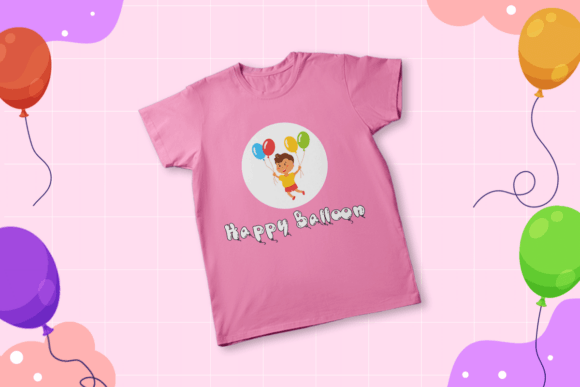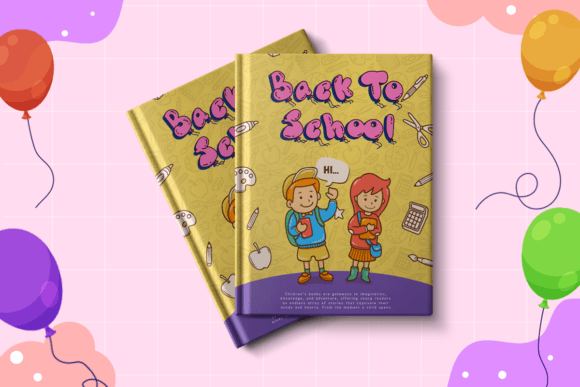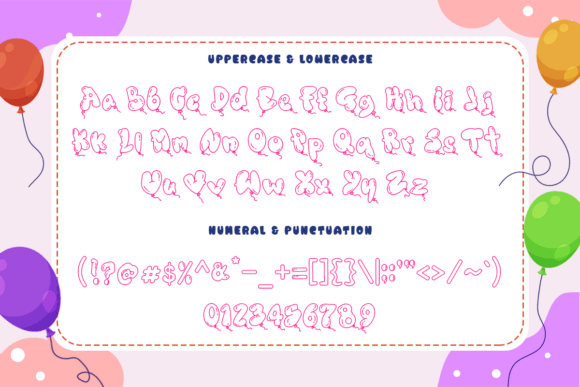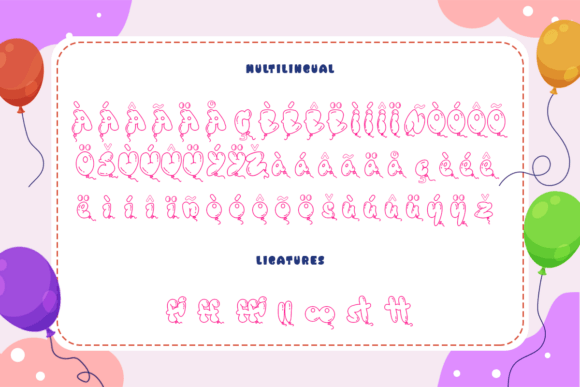
Baloons Font: The Perfect Addition to Your Kids’ Projects
Are you looking for a fun and playful font to add a touch of excitement to your kids’ projects? Look no further than Baloons Font! This delightful balloon-style typeface is perfect for kids’ birthday invitations, party decorations, classroom materials, and t-shirt designs. With its simple, cheerful, and easy-to-use design, Baloons Font is sure to bring a smile to everyone’s face.
What Makes Baloons Font So Special?
Baloons Font is more than just a font – it’s a way to add a joyful touch to your creations. Its playful design is reminiscent of balloons, making it perfect for kids’ projects. The font is available in OTF and TTF formats, ensuring that it can be used on a variety of devices and software. Additionally, Baloons Font has multilingual support, making it accessible to users all around the world.
One of the best features of Baloons Font is that it is PUA (Private Use Area) encoded. This means that you can access all of the cute glyphs and swashes with ease. PUA encoding allows you to access the font’s special characters, such as ligatures, ornaments, and other decorative elements, making it easy to add a personal touch to your projects.
Baloons Font is a dream come true for designers and crafters. Whether you’re creating custom birthday invitations, party decorations, or classroom materials, this font is sure to add a touch of whimsy and fun. The font is also perfect for t-shirt designs, making it a great addition to your design library.
Endless Possibilities
With Baloons Font, the possibilities are endless! Here are just a few ideas to get you started:
- Create custom birthday invitations that will make the birthday child feel special
- Design party decorations, such as banners, garlands, and signs, that will add a pop of color and fun to any party
- Develop classroom materials, such as worksheets, posters, and activity sheets, that will engage and educate kids
- Design custom t-shirts, hoodies, and other apparel that kids will love
Why Choose Baloons Font?
There are many reasons why Baloons Font is the perfect choice for your kids’ projects. Here are just a few:
- Fun and playful design that’s perfect for kids
- Simple and easy to use, even for beginners
- Multilingual support for global users
- PUA encoded for easy access to special characters
Get Ready to Add Some Fun to Your Projects!
In conclusion, Baloons Font is a fun and playful balloon-style typeface that’s perfect for kids’ projects. With its simple, cheerful, and easy-to-use design, it’s sure to add a joyful touch to your creations. Whether you’re a designer, crafter, or parent, Baloons Font is a great addition to your toolkit. So why not give it a try? Download Baloons Font today and see the difference it can make in your projects!